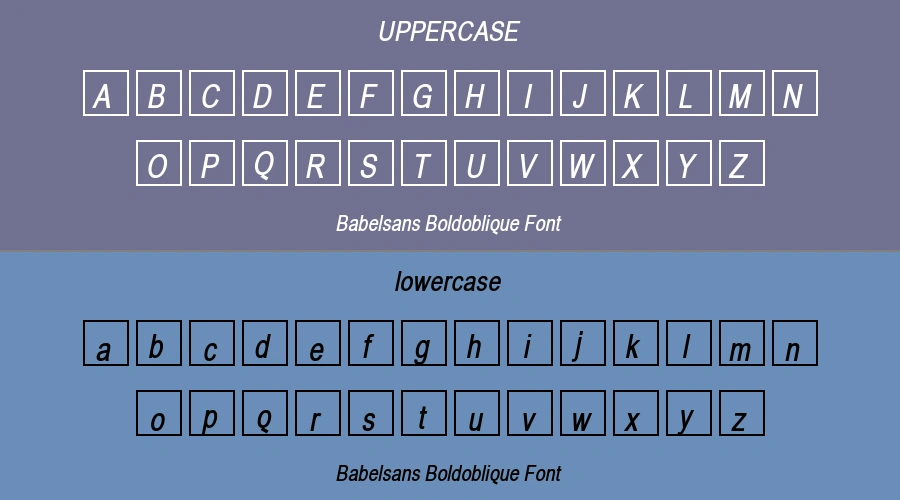
About Babelsans Boldoblique Font
Designed with precision, Babelsans Boldoblique Font merges elegant curves with durability in every character. This versatility makes it particularly effective for medical texts, where authenticity and professional standards directly impact communication quality. Each letterform demonstrates meticulous craftsmanship.
Technical excellence shines through elements like distinctive details and pi characters, enhancing typographic versatility. In regulatory documents settings, Babelsans Boldoblique Font proves its worth through superior small cap rendering. The thoughtful execution of proportion and lifestyle alignment ensures professional results.